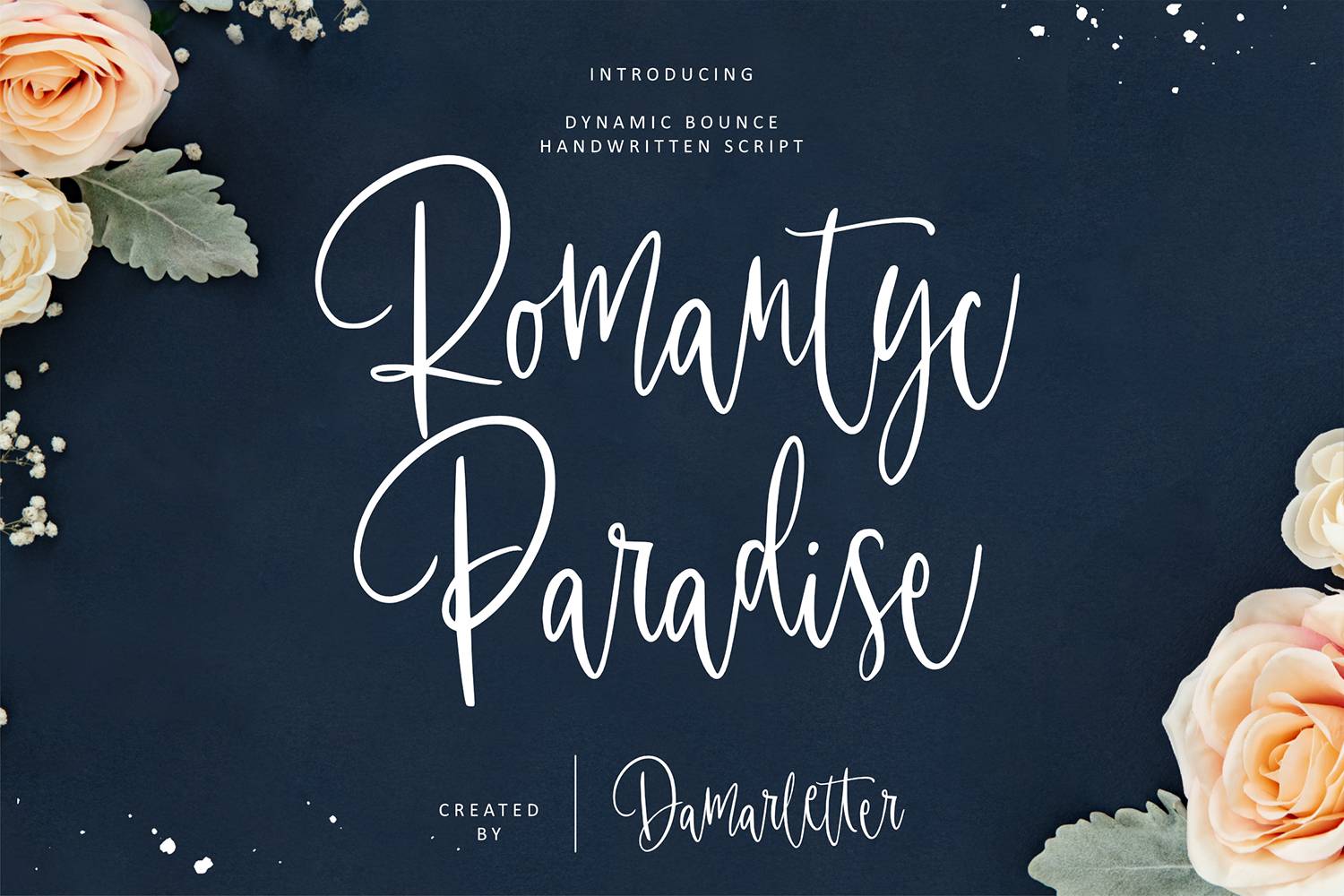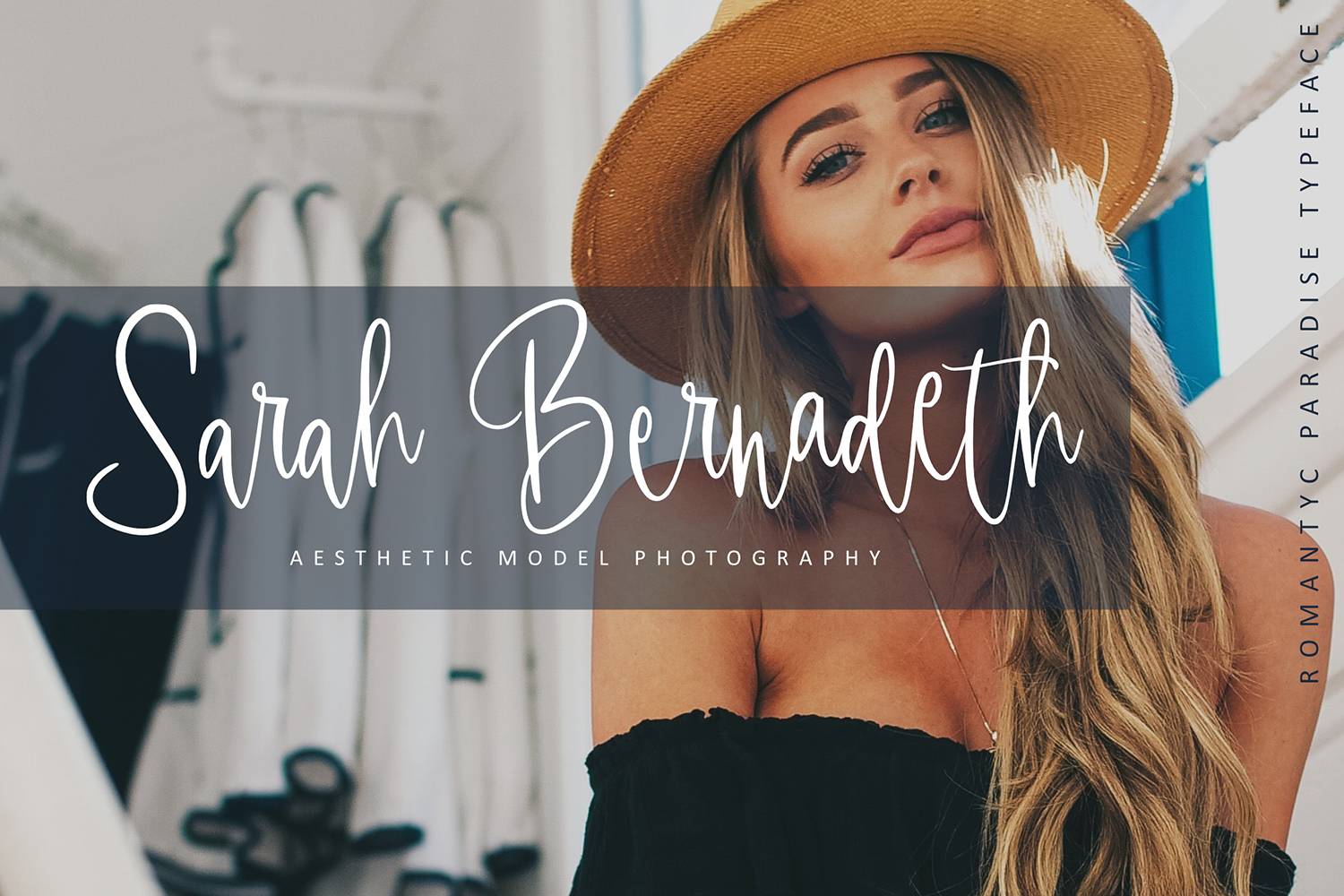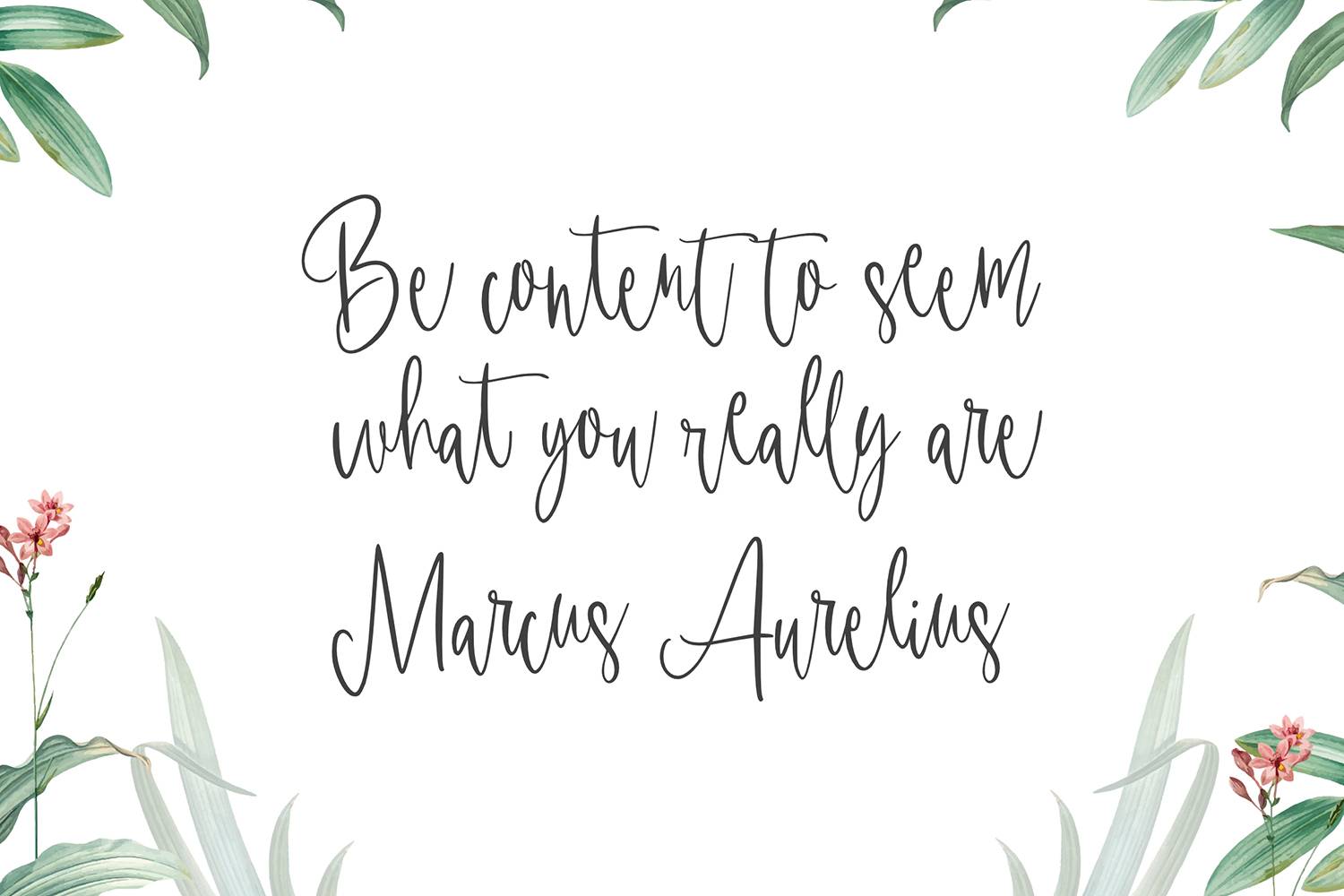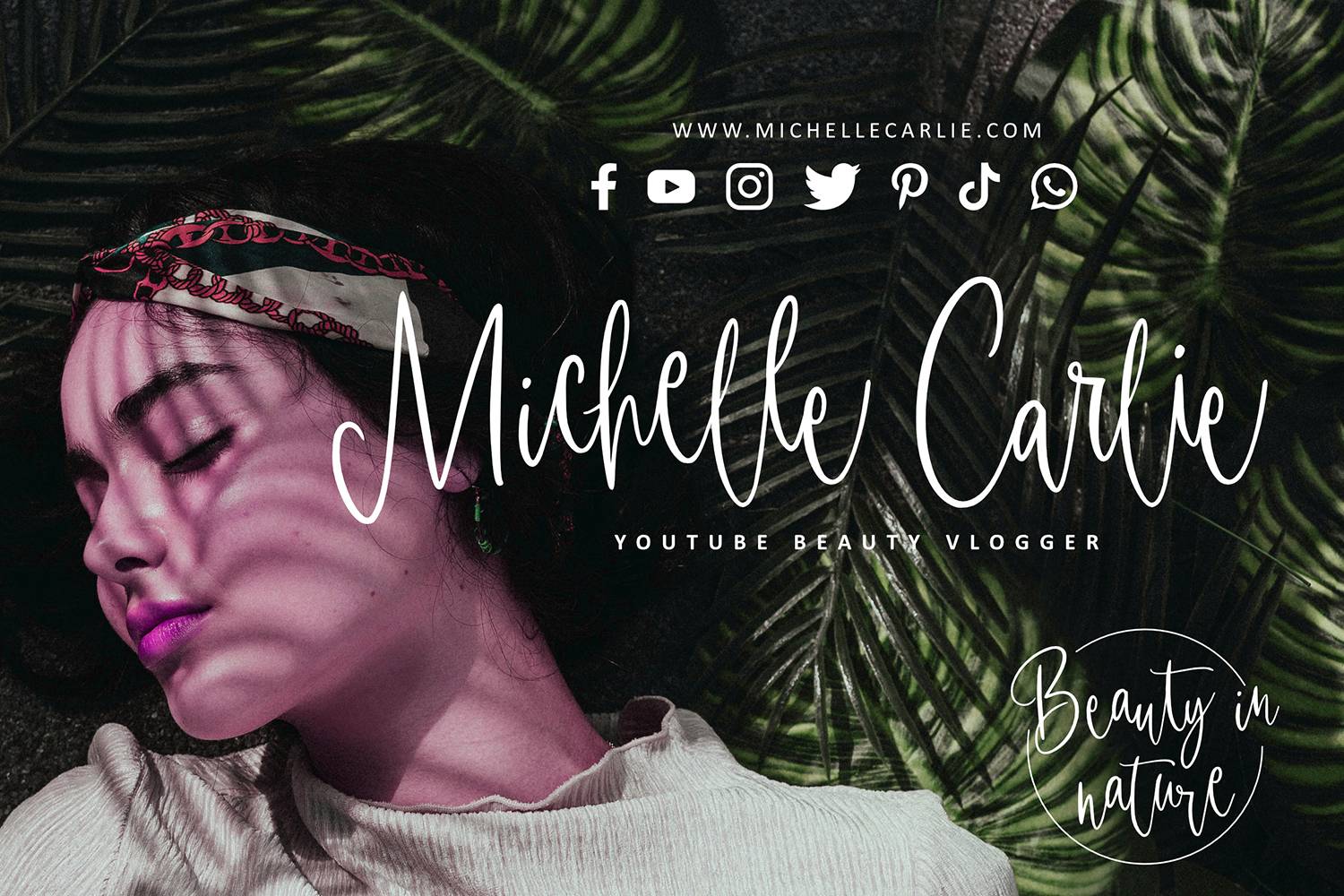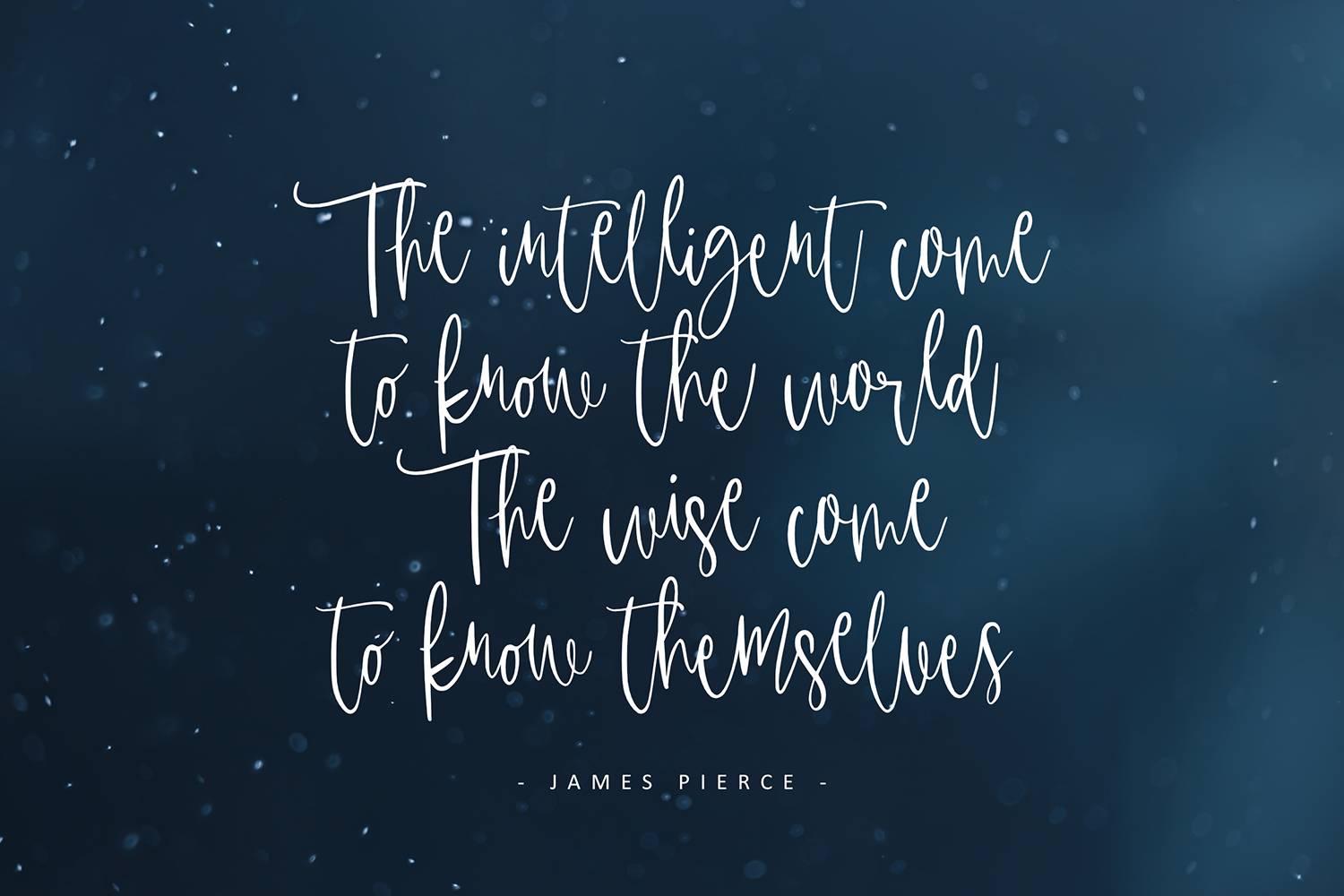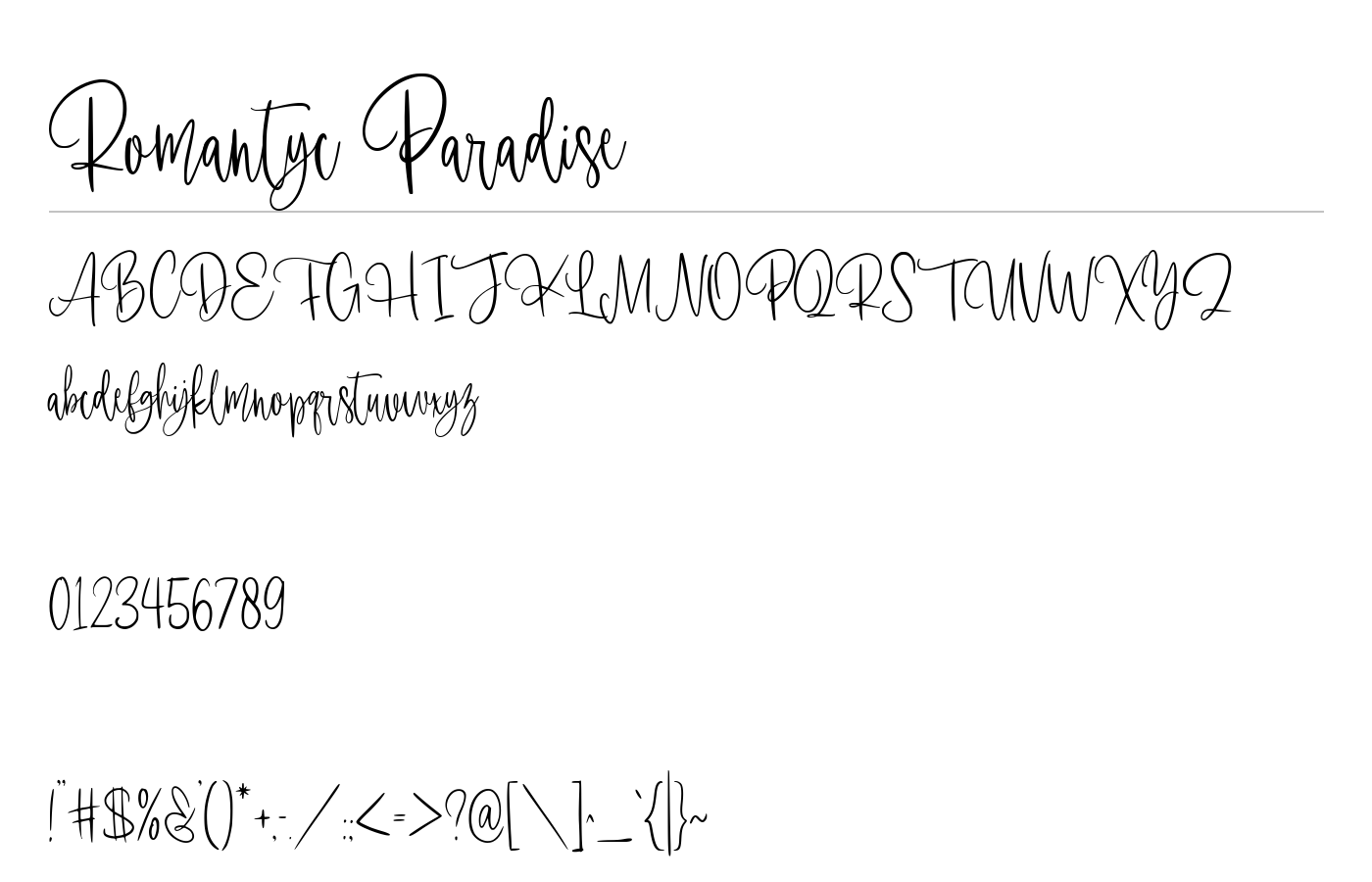
Romantyc Paradise is a delicate, handwritten script font characterized by its slender, elegant strokes and flowing, playful letterforms. With its tall x-height, gentle contrasts, and charmingly whimsical curves, it brings a romantic and modern feel that's perfect for stylish branding, invitations, and feminine design projects. This font shines in creative, decorative contexts where a touch of grace and individuality is desired.
Romantyc Paradise Font
About Romantyc Paradise Font
| Font family | Romantyc Paradise Font |
| Release date | 2021-11-18 |
| Designer | Ardian Nuvianto |